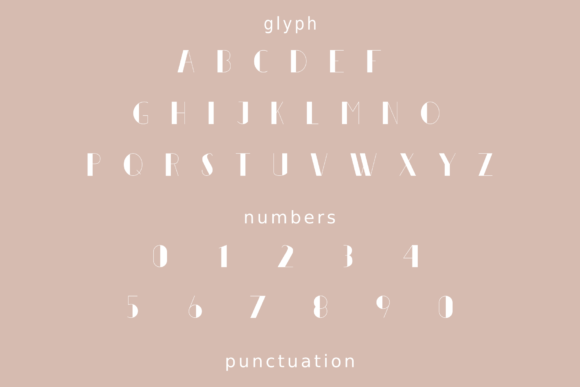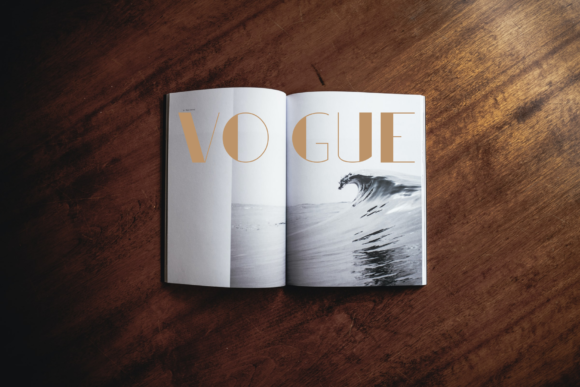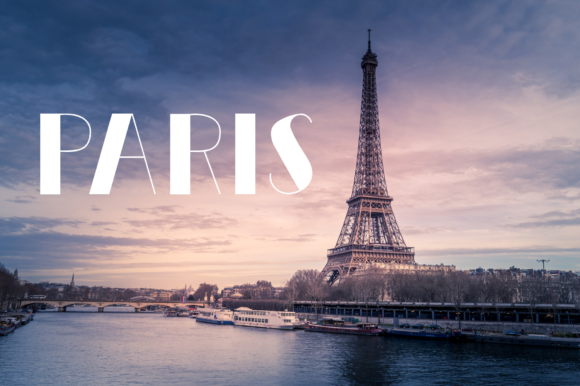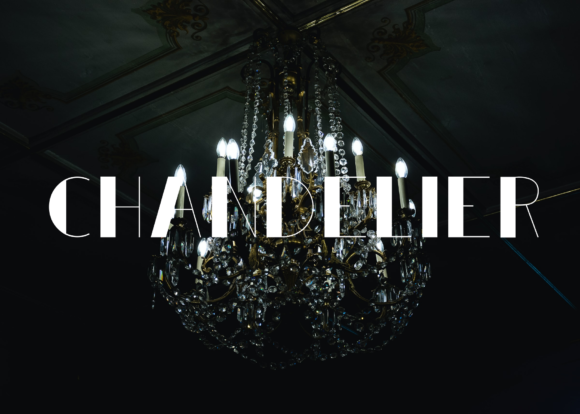
Elegant Font: Elevate Your Crafting Ideas with Class and Sophistication
Are you a designer, crafter, or DIY enthusiast looking to add a touch of elegance to your projects? Look no further than the Elegant font, a cool and classy display font that is sure to elevate your crafting ideas to the next level. With its sophisticated and refined aesthetic, Elegant is the perfect addition to a wide range of projects, from cards and invitations to branding, labels, and more.
The Power of Typography: Why Elegant Font Stands Out
Typography plays a crucial role in any design project, as it can make or break the overall aesthetic and impact of your work. The right font can evoke emotions, convey personality, and add a level of sophistication that sets your project apart from the rest. This is where Elegant font comes in – a beautifully crafted display font that exudes elegance and refinement.
With Elegant font, you can add a touch of luxury and sophistication to your projects, making them perfect for a variety of applications, including:
- Cards and Invitations: Create stunning greeting cards, invitations, and announcements that make a lasting impression.
- Branding and Packaging: Elevate your brand’s visual identity with Elegant font, perfect for logos, labels, and packaging design.
- Crafting and DIY: Add a touch of elegance to your crafting projects, such as scrapbooking, journaling, and paper crafting.
Key Features of Elegant Font
So, what makes Elegant font so special? Here are just a few of its key features:
- Cool and Classy: Elegant font boasts a sophisticated and refined aesthetic that is sure to impress.
- Display Font: Designed specifically for display purposes, Elegant font is perfect for headlines, titles, and other prominent text elements.
- Versatile: Use Elegant font in a variety of projects, from digital designs to print materials.
Tips for Using Elegant Font in Your Projects
To get the most out of Elegant font, here are a few tips to keep in mind:
- Pair with Other Fonts: Combine Elegant font with other fonts to create a unique and visually appealing typography scheme.
- Experiment with Colors: Try out different color combinations to find the perfect match for your project.
- Play with Size: Experiment with different font sizes to create visual hierarchy and add emphasis to key text elements.
In conclusion, Elegant font is a powerful tool for designers and crafters looking to add a touch of elegance and sophistication to their projects. With its cool and classy aesthetic, versatility, and ease of use, Elegant font is the perfect addition to any crafting idea. So why wait? Add Elegant font to your favorite creations and get ready to be amazed by the outcome!
Whether you’re a seasoned designer or a DIY enthusiast, Elegant font is sure to elevate your projects to the next level. So go ahead, get creative, and let Elegant font help you bring your ideas to life in style!